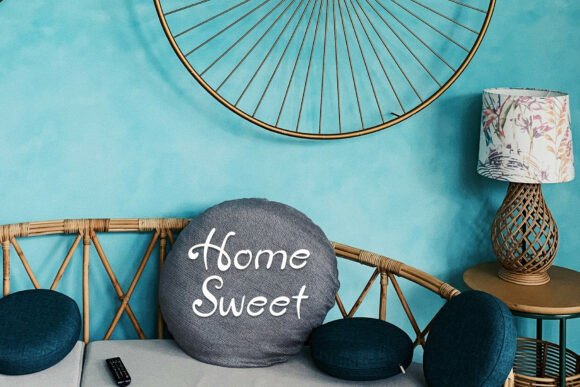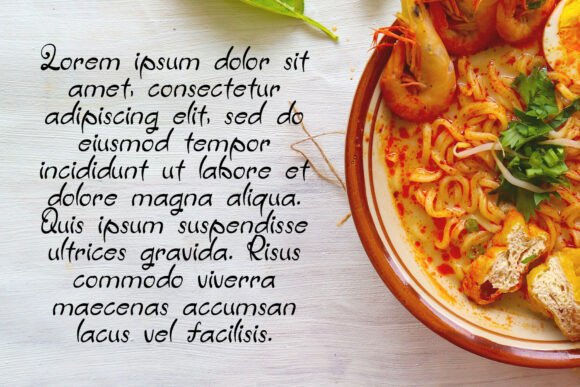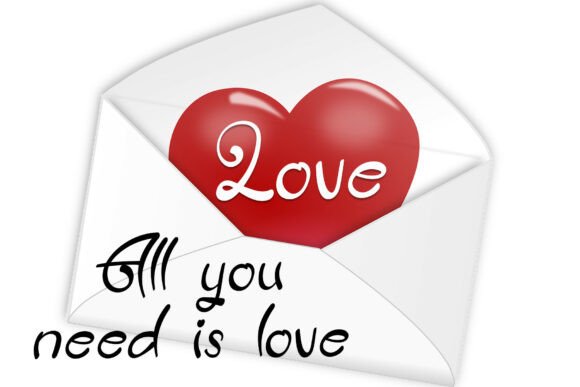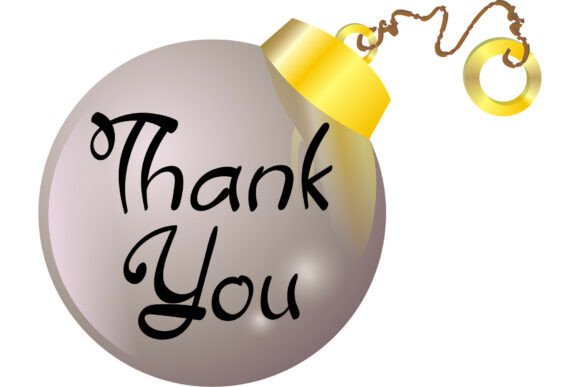
Introducing Esti Font: Elevate Your Designs with Elegance
Are you searching for a font that adds a touch of sophistication and uniqueness to your projects? Look no further than Esti Font, a beautifully crafted typeface designed to make your designs stand out. In this article, we’ll explore the features and benefits of Esti Font, and how it can be the perfect addition to your design toolkit.
The Story Behind Esti Font
Esti Font is a carefully crafted font, made with a professional hand touch to ensure that every letter and glyph is a masterpiece. The designers behind Esti Font have poured their hearts into creating a typeface that is not only elegant but also versatile. Whether you’re working on a wedding invitation, a birthday card, or a school project, Esti Font is the perfect choice.
Key Features of Esti Font
- Unique and Elegant Design: Esti Font boasts a distinctive and refined design that will add a touch of class to any project.
- Professional Hand Touch: Each letter and glyph has been meticulously crafted to ensure a high level of quality and attention to detail.
- Versatile: Esti Font is suitable for a wide range of projects, including wedding invitations, birthday cards, party invitations, school assignments, and more.
- Easy to Use: Esti Font is accessible with all glyphs, without the need for any additional applications.
Why Choose Esti Font?
With so many fonts available, why choose Esti Font? Here are just a few reasons:
- Stand Out from the Crowd: Esti Font’s unique design ensures that your projects will stand out from the crowd.
- Save Time: With Esti Font, you can create professional-looking projects in no time, thanks to its ease of use and versatility.
- Perfect for Designers and Crafters: Whether you’re a professional designer or a crafter, Esti Font is the perfect addition to your toolkit.
Project Ideas with Esti Font
Esti Font is perfect for a wide range of projects, including:
- Wedding Invitations: Add a touch of elegance to your wedding invitations with Esti Font.
- Birthday Cards: Create personalized birthday cards with Esti Font.
- School Assignments: Use Esti Font to add a professional touch to your school assignments.
- Party Invitations: Create eye-catching party invitations with Esti Font.
In conclusion, Esti Font is a unique and elegant font that is perfect for designers and crafters looking to add a touch of sophistication to their projects. With its professional hand touch, versatility, and ease of use, Esti Font is a must-have in any design toolkit. So why wait? Download Esti Font today and start creating stunning designs that will leave a lasting impression.